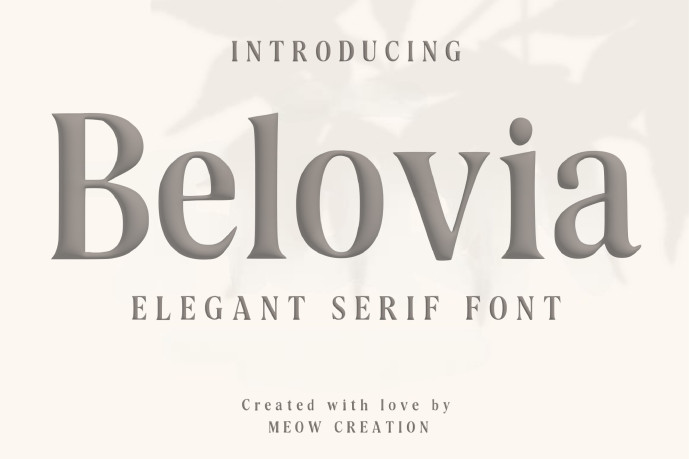
Belovia Serif Font
Belovia Serif Font with a timeless and sophisticated style. Its refined curves and graceful lines bring a touch of luxury to every design. Perfect for logos, branding, invitations, magazines, and elegant packaging, this font adds a classy and professional look to your projects.
Belovia combines vintage charm with modern beauty, making it ideal for both display headlines and body text. Add this stylish serif font to your collection and elevate your designs with elegance and confidence.